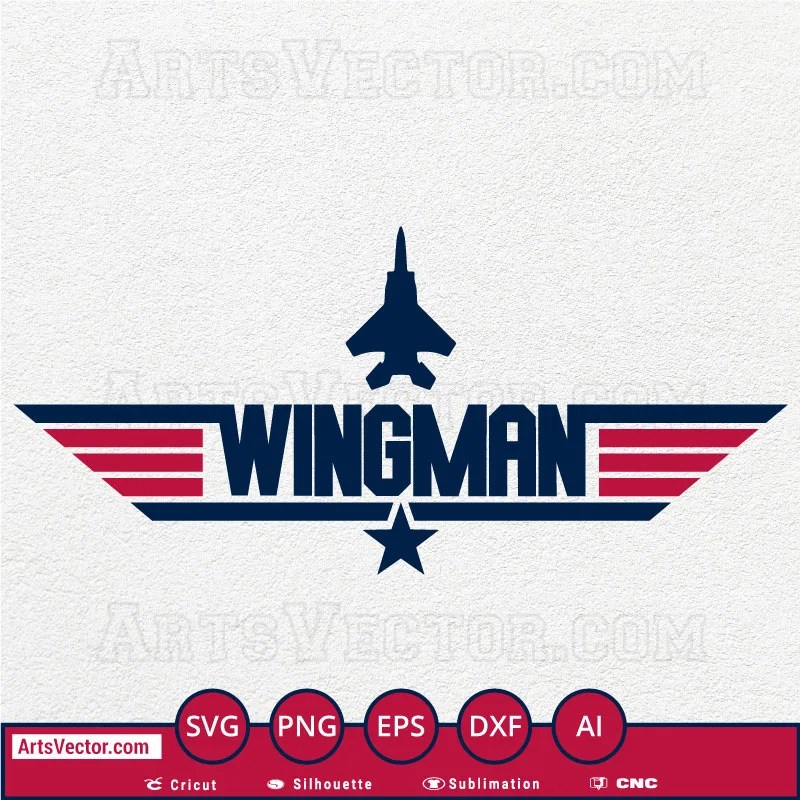
Top Gun Wings Font . the top gun font can be found on fonts space, hyperpix.net, and fonts 4 free websites. You can use the font in your personal projects. free download of top gun font. Top gun font is available for free download for noncommercial, personal. Directly from the best movie by tony scott, with tom cruise, the original font for all lovers. download the free font replicating the title logo from the movie top gun and many more at the original famous fonts! The top gun font has been downloaded 127,772 times. Top gun is an action drama movie directed by tony scott. Download free top gun font. top gun font is a techno, various font designed by alphabet & type. Other font websites that give you unhindered access to top. This font is designed by alphabet & type. “top gun” is the font used in the movie top gun. top gun font: Simply download it from the link below.
Top Gun Maverick Goose SVG Bring Back That Lovin' Feeling SVG PNG EPS Top Gun Wings Font “top gun” is the font used in the movie top gun. download the free font replicating the title logo from the movie top gun and many more at the original famous fonts! Directly from the best movie by tony scott, with tom cruise, the original font for all lovers. top gun font is a techno, various font. Top Gun Wings Font.
TOP GUN font Top Gun Wings Font “top gun” is the font used in the movie top gun. Top gun is an action drama movie directed by tony scott. download and install the top gun font by alphabet & type. You can use the font in your personal projects. free download of top gun font. Directly from the best movie by tony scott, with. Top Gun Wings Font.
Descargar fondos de Logode Top Gun Maverick Top Gun Wings Font You can use the font in your personal projects. download and install the top gun font by alphabet & type. Other font websites that give you unhindered access to top. “top gun” is the font used in the movie top gun. Directly from the best movie by tony scott, with tom cruise, the original font for all lovers.. Top Gun Wings Font.
Top Gun eagle Top Gun Wings Font You can use the font in your personal projects. Other font websites that give you unhindered access to top. download the free font replicating the title logo from the movie top gun and many more at the original famous fonts! Top gun font is available for free download for noncommercial, personal. top gun font: Top gun is an. Top Gun Wings Font.